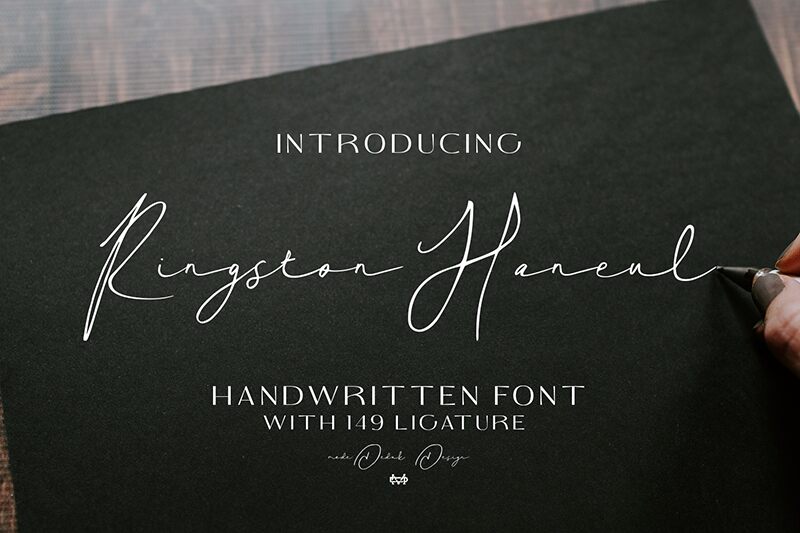
Ringston Haneul Demo
Ringston Haneul font by madeDeduk is a light handwritten font that effortlessly captures casual elegance. Its flowing, organic feel gives it a modern yet timeless appeal, with cursive strokes and subtle curves contributing to its overall aesthetic harmony. The graceful touch ensures readers feel engaged and comfortable without compromising style.